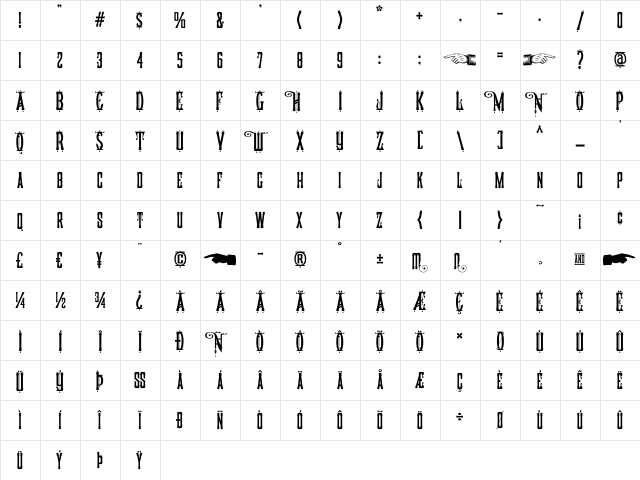
American West Regular Free Font
American West Regular
Design Context for American West
American West is a composed and adaptable typeface that performs quietly and consistently across a wide range of design contexts.